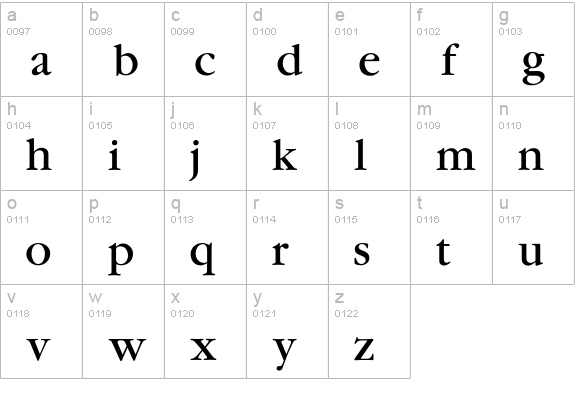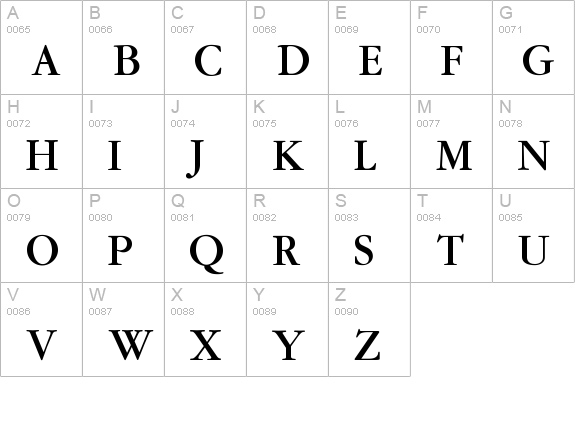
GaramondBook Font Details
GaramondBook is a timeless font that exudes elegance and sophistication. It gracefully combines traditional elements with a modern twist, making it perfect for a wide range of design projects. The distinct serifs and subtle curves of GaramondBook add a touch of refinement to any text, whether it's for print or digital media. What sets GaramondBook apart is its versatility and readability. The carefully crafted letterforms ensure that every character is easy on the eyes, making it ideal for long passages of text. Whether you're designing a book, a magazine, or a website, GaramondBook will effortlessly elevate your typography game. And the best part? GaramondBook is available for free download at FontsMarket.com. Yes, you read that right! This high-quality font can be yours at no cost, allowing you to use it in your personal and commercial projects without any restrictions. FontsMarket.com is a trusted source for free fonts, providing designers with a wide selection of top-notch typefaces. So why wait? Enhance your design projects with the timeless beauty of GaramondBook. Download it for free at FontsMarket.com and let your creativity soar.